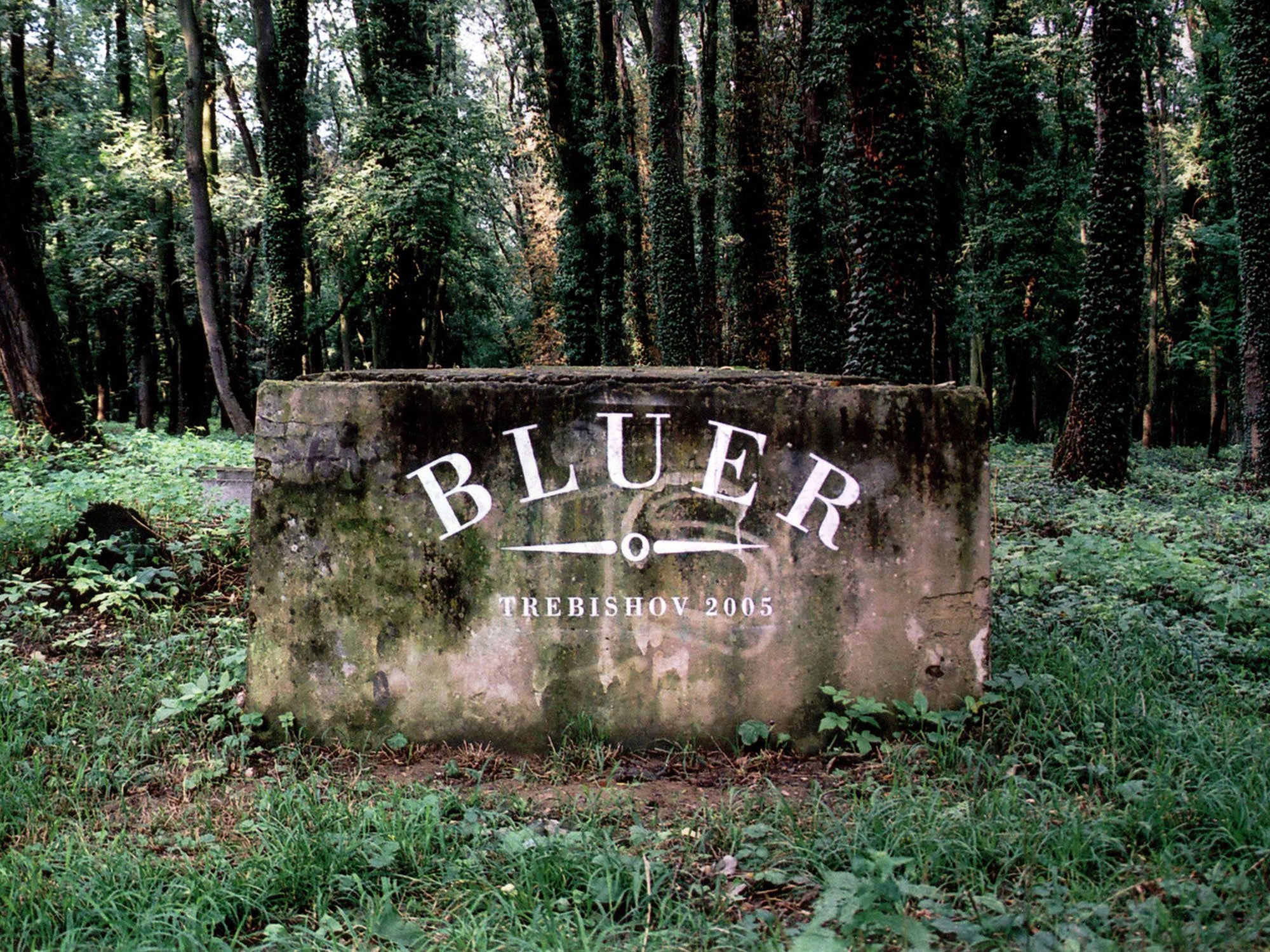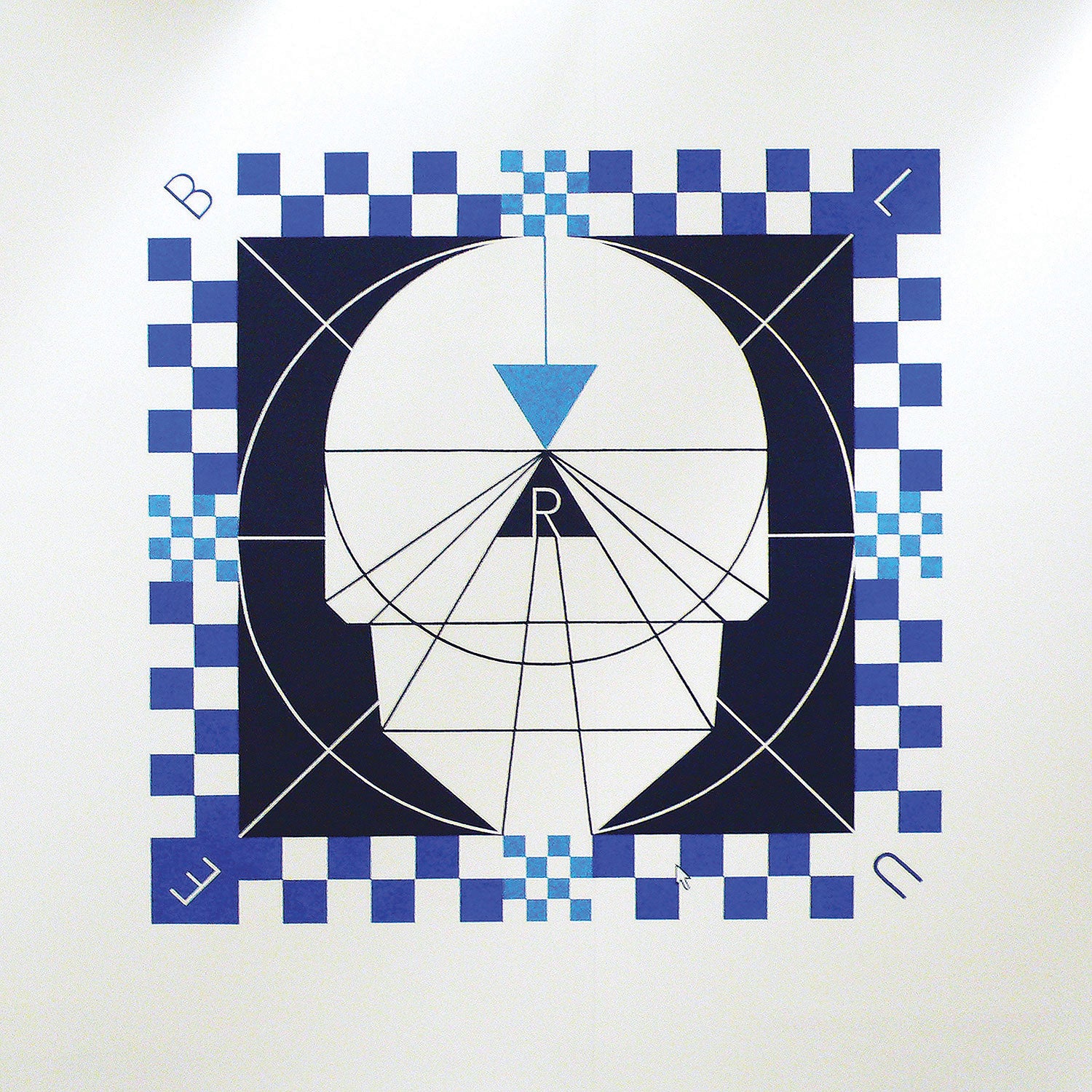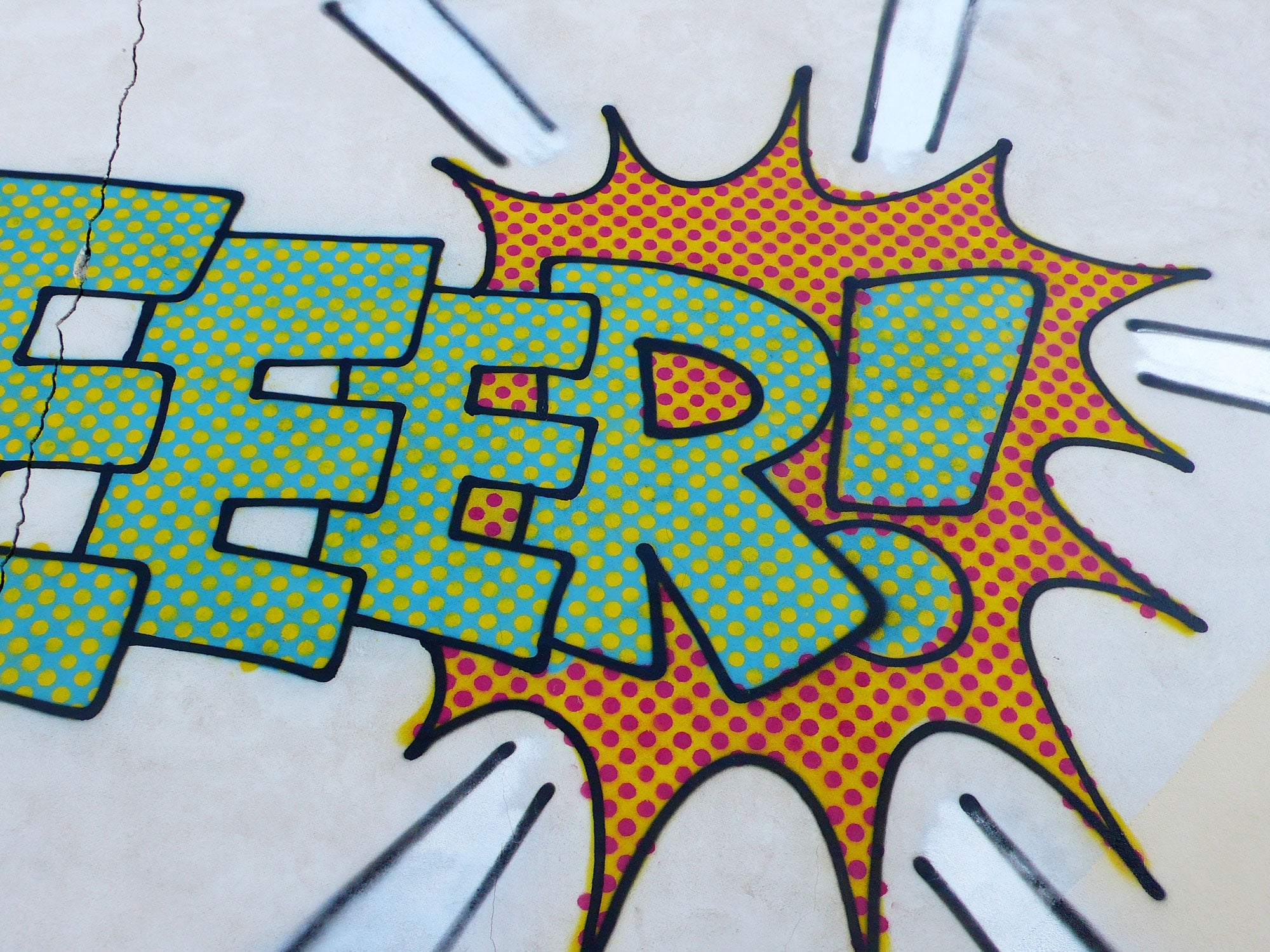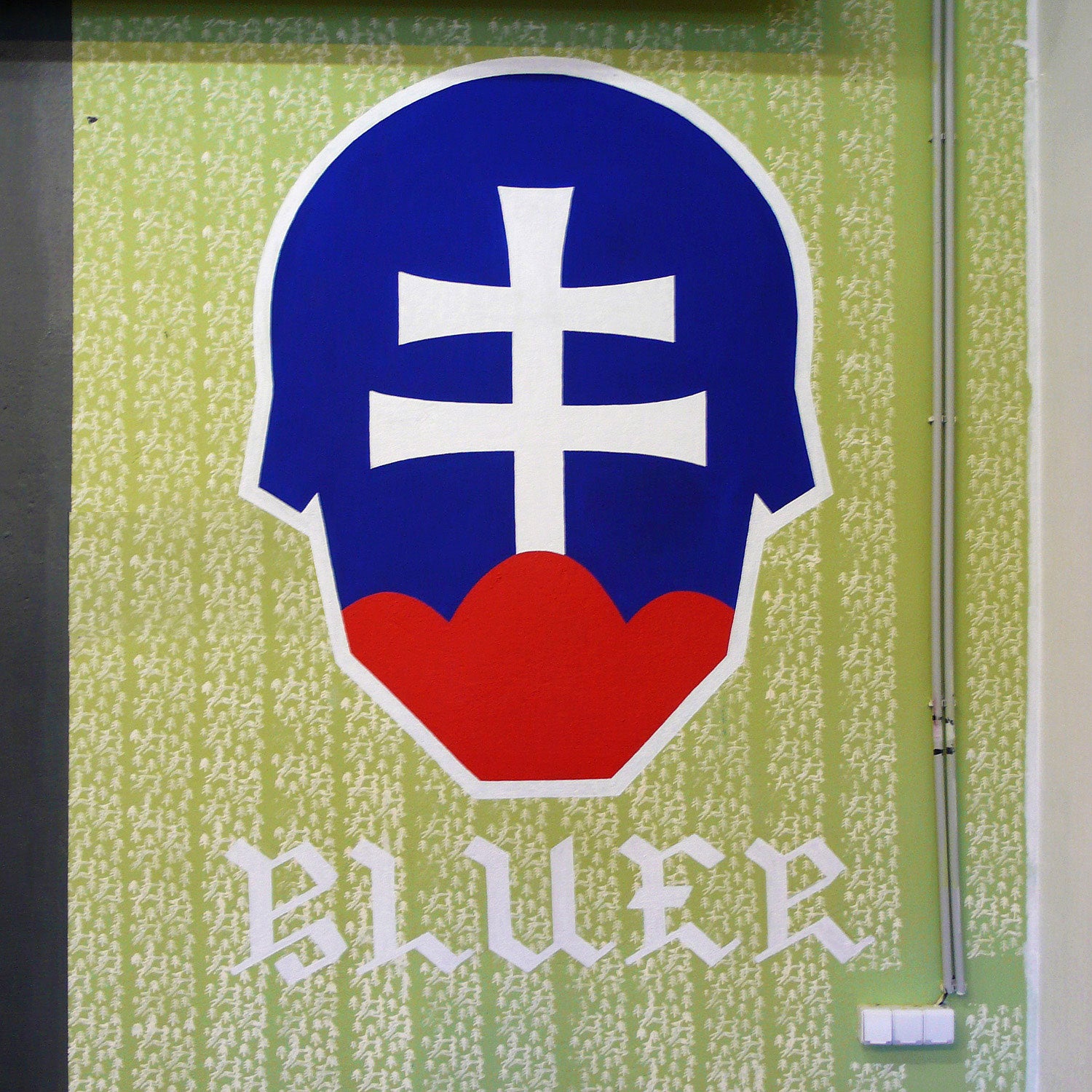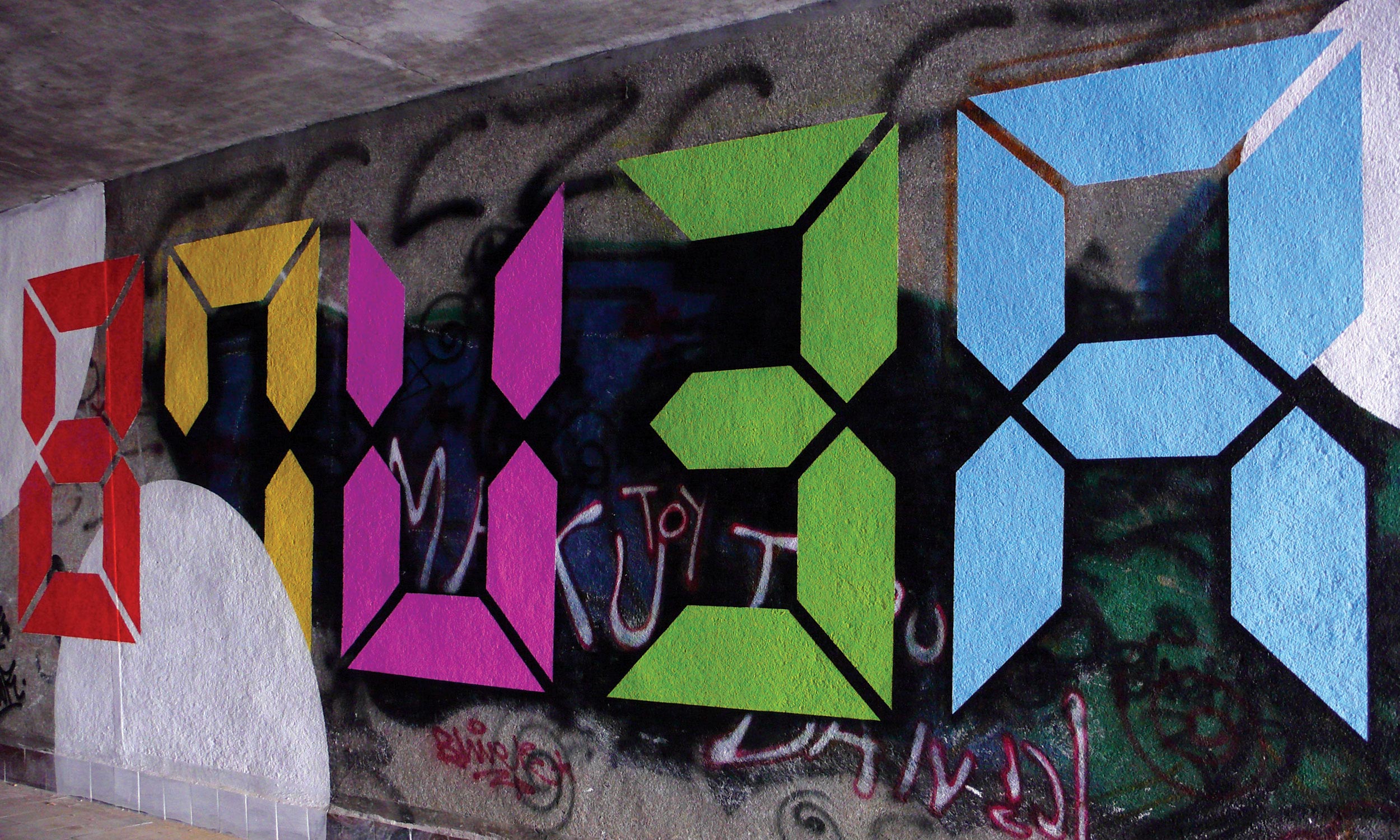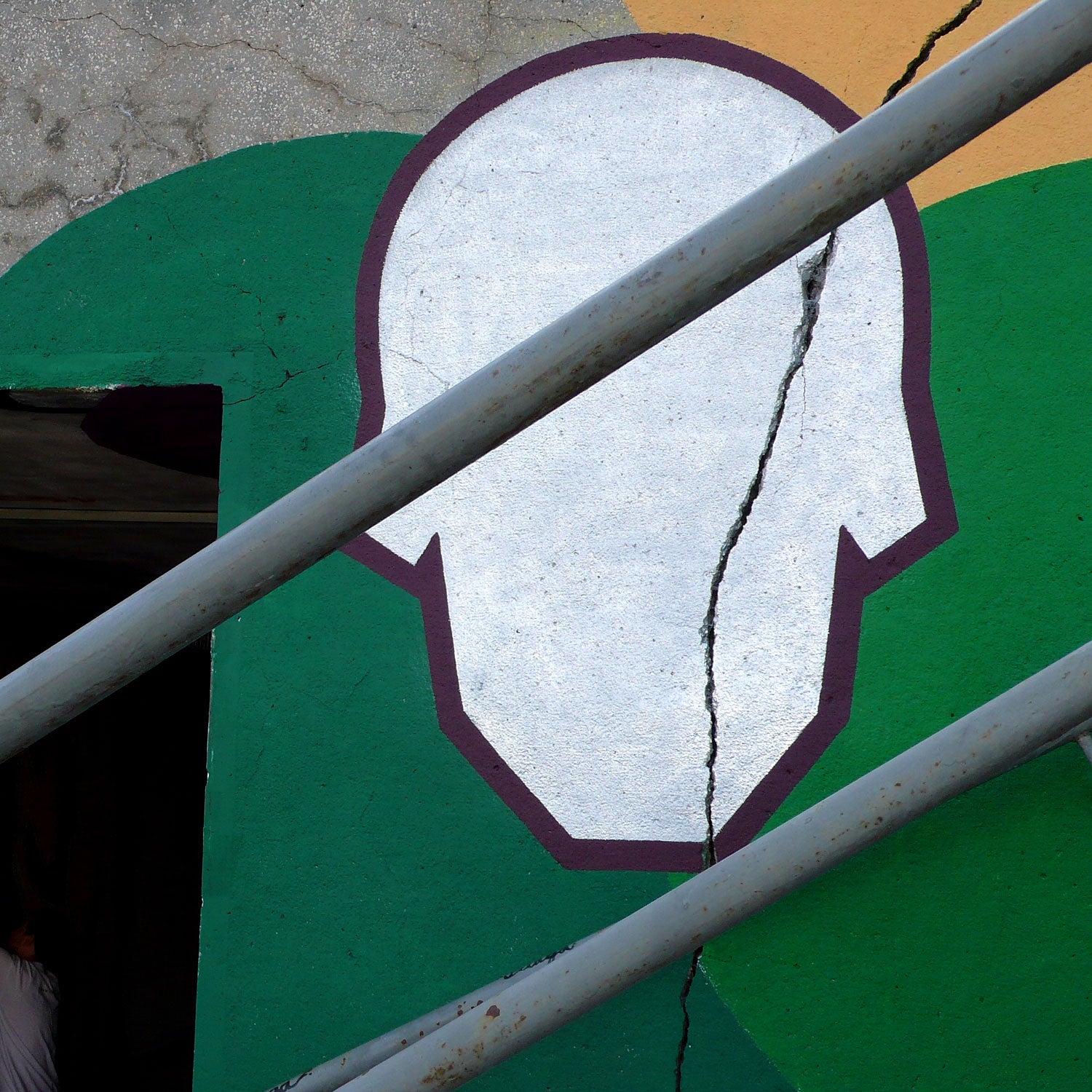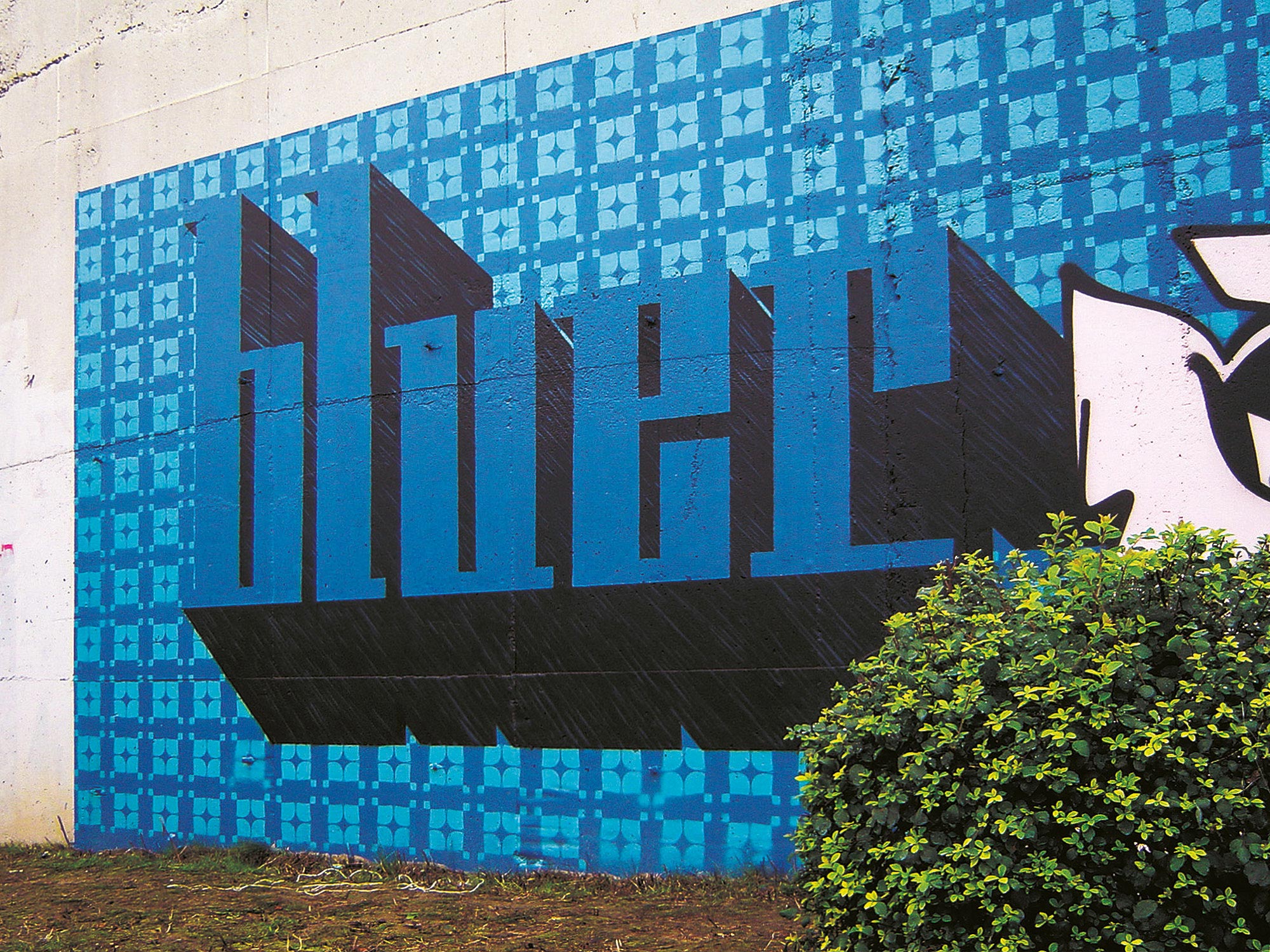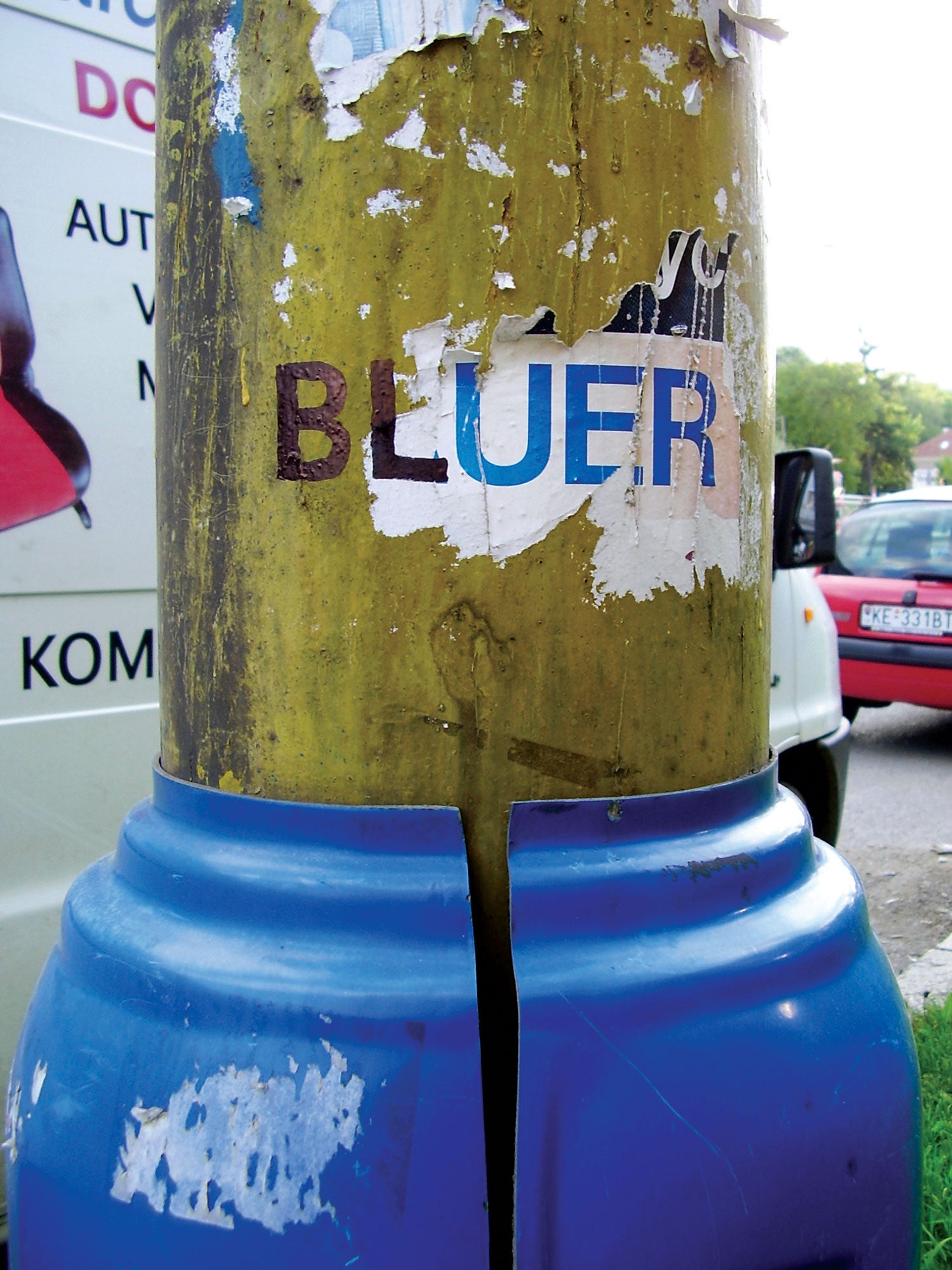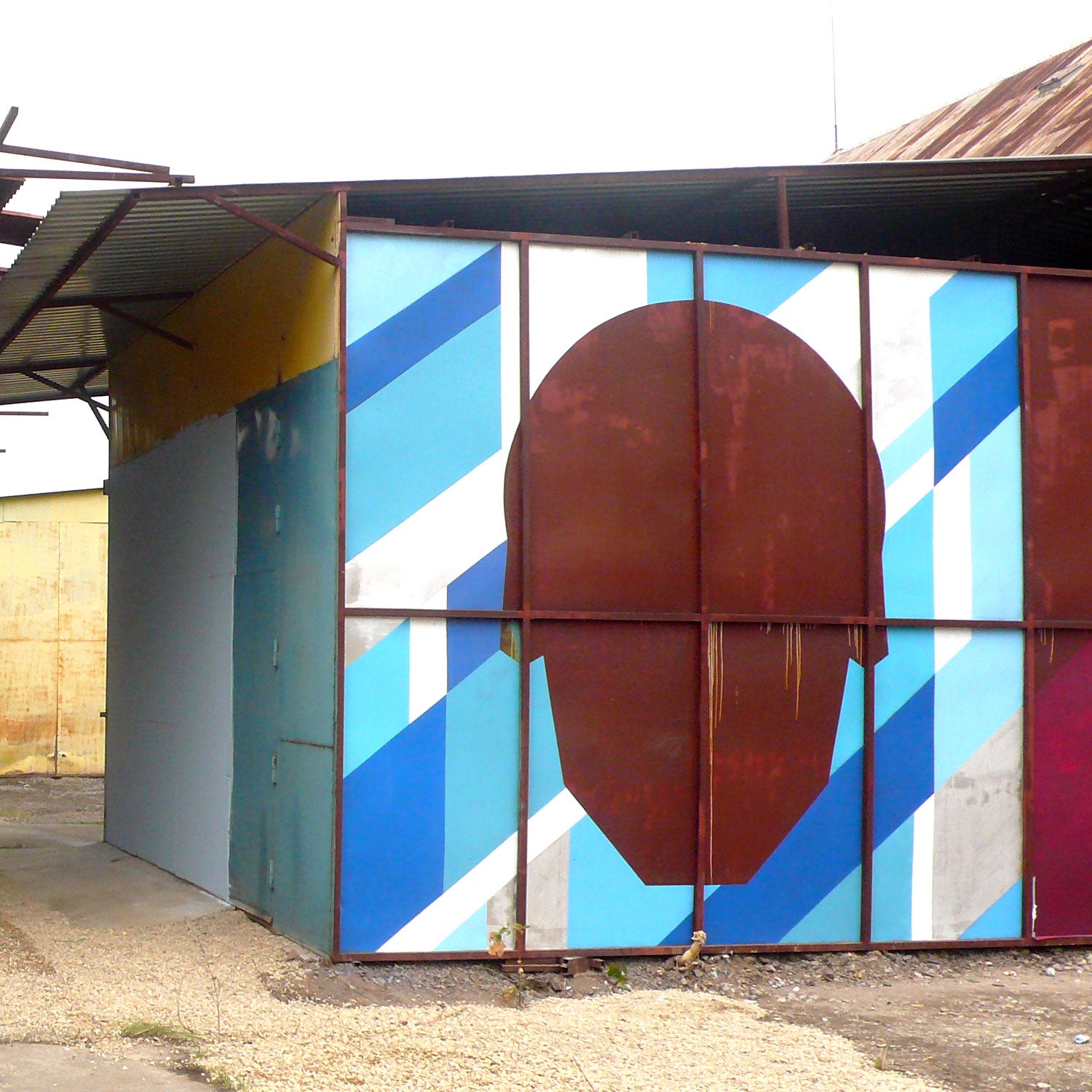
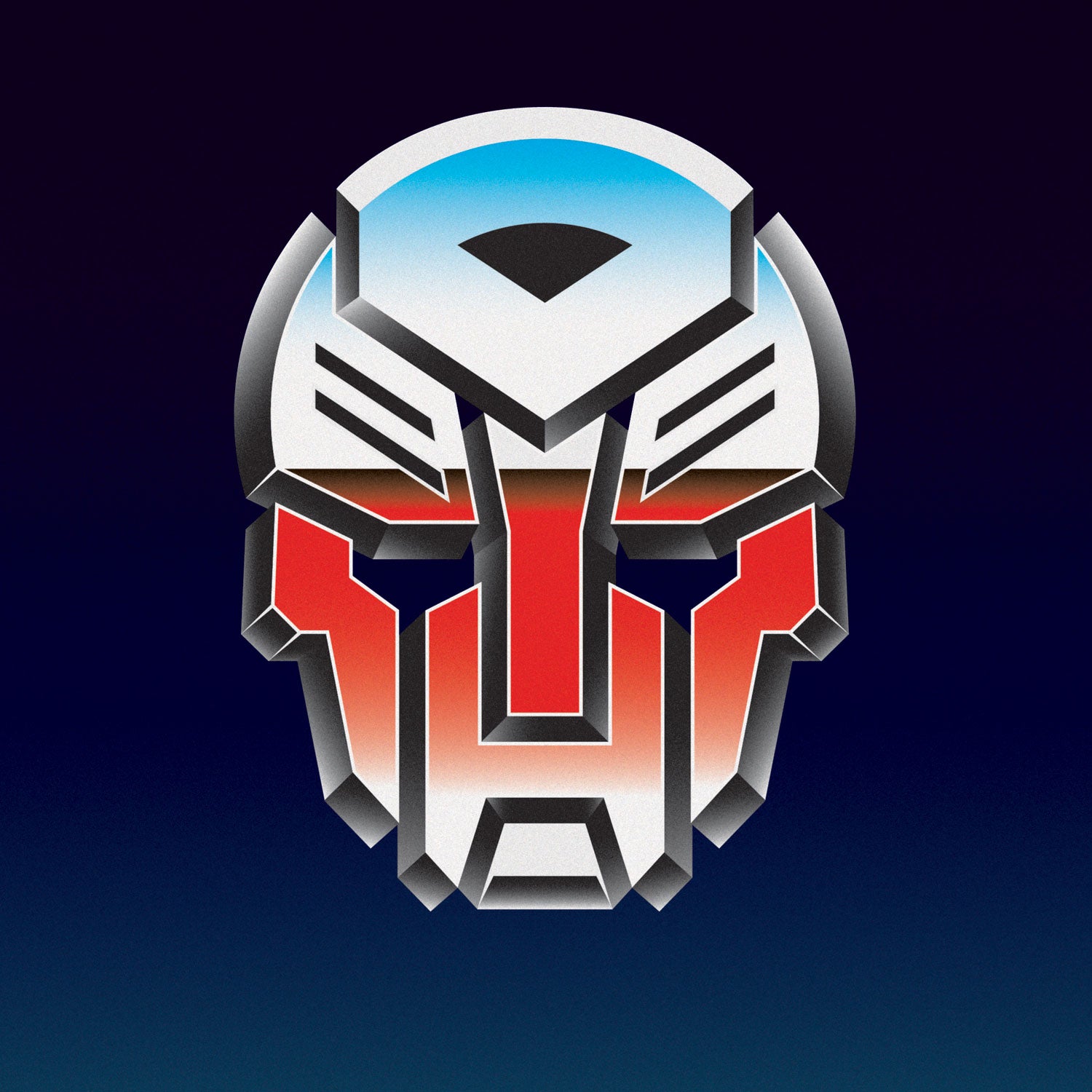
I draw letters, symbols, icons. I paint with a spraycan, brush, roller, whatever I can use. Concrete, urban space, boring surfaces all become my canvas. I am inspired by typography, graphic design and the environment itself. The five letters have gradually evolved into an iconographic game of my own brand. The name has turned into a shadow, an anonymous silhouette of a face, symbolising an anonymous artist. What is left is just the space, site, colour, process, result and its recording. The content is the form. The process is enjoyable, but the result is what is important. A passionate game full of feeling free. An important impulse and starting point for my further creative work in visual communication and typeface design.
selection of graffiti/street art creations • various places and events in Slovakia and abroad • Košice, Žilina, Martin, Liptovský Mikuláš, Berlin… • © Bluer (2005 — 2010)